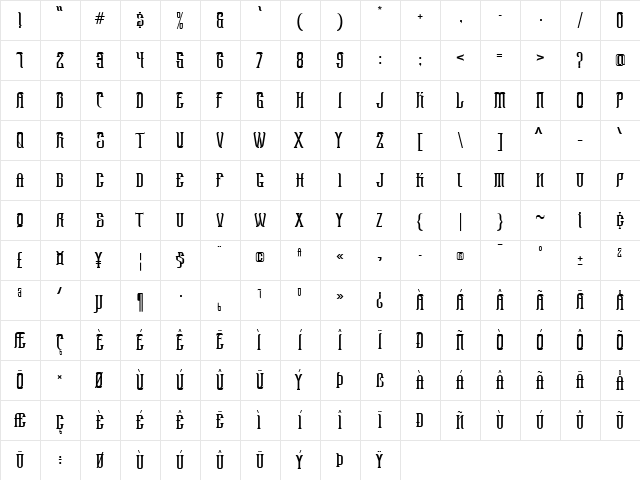
Hassengard Regular
| Foundry | Pollux of Geminorum |
| Designer | Pollux of Geminorum |
Design Context for Hassengard Typeface
Hassengard is a composed and adaptable typeface that performs quietly and consistently across a wide range of design contexts.